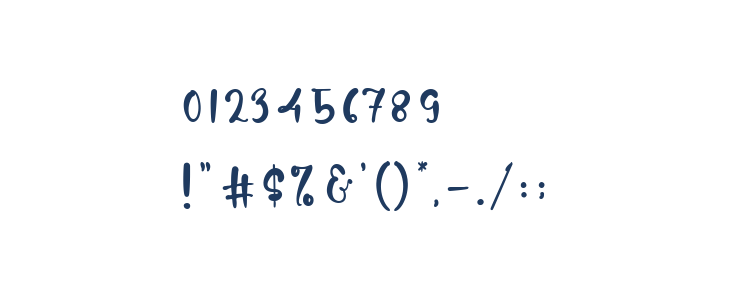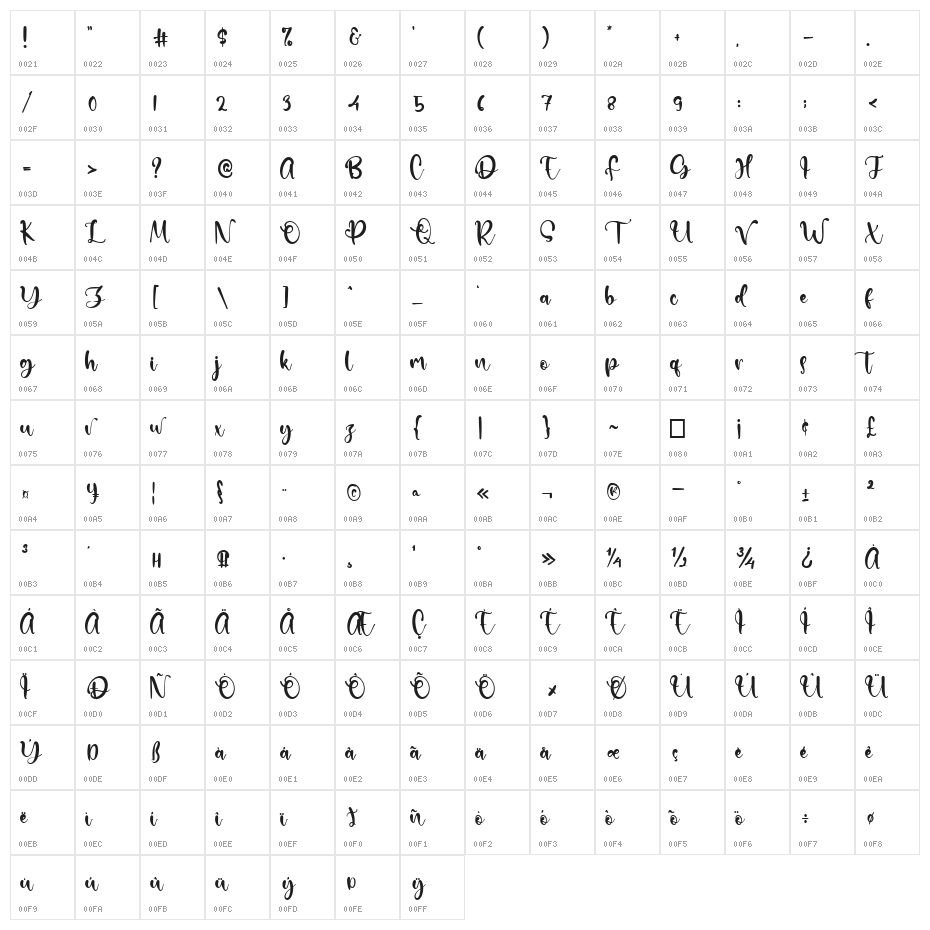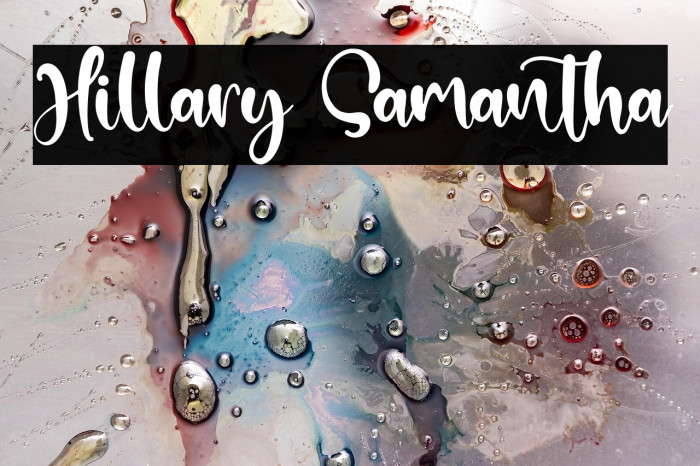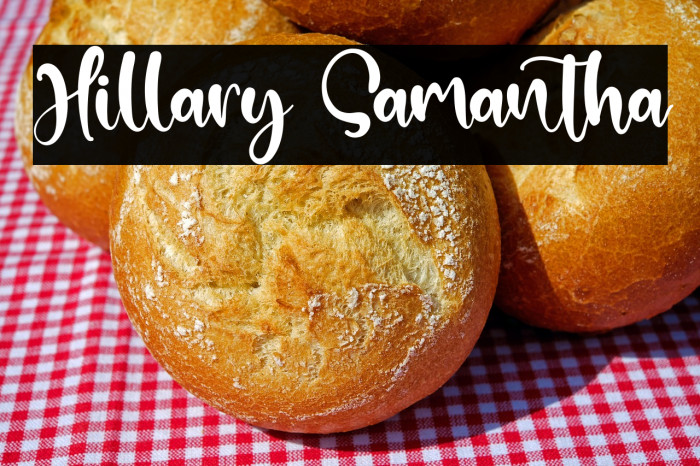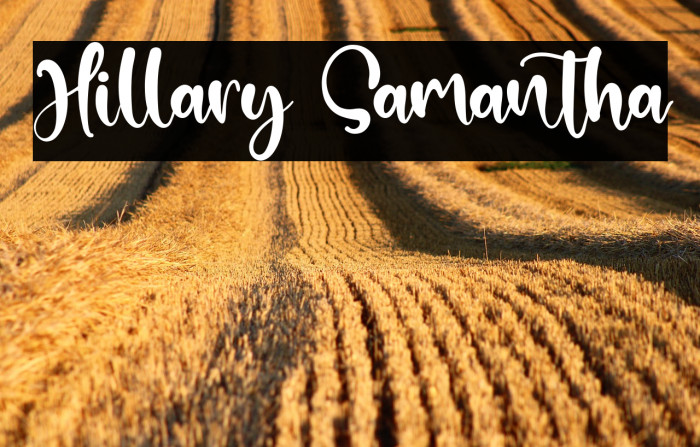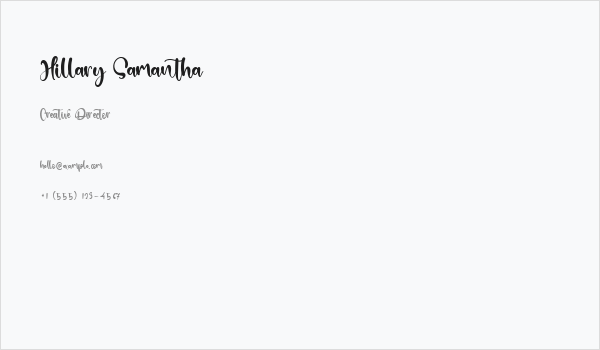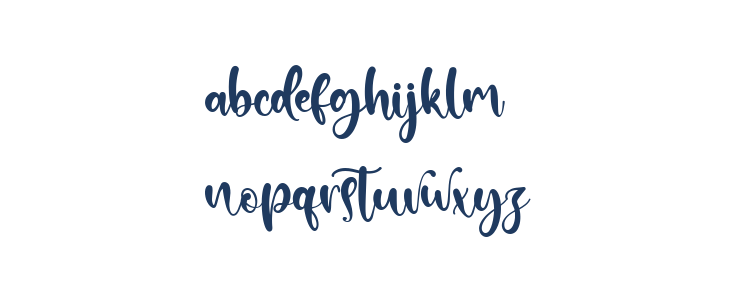
Hillary Samantha Font
Hillary Samantha Description
This font features a playful and elegant script style with a handwritten appearance. The uppercase letters are bold and flowing, with a distinct flair that adds a touch of sophistication. The lowercase letters maintain a consistent style, with smooth curves and loops that enhance readability. Numbers and special characters are designed to match the overall aesthetic, providing a cohesive look. The font's strokes are moderately thick, offering a balanced contrast that makes it suitable for various design applications.
| Proposed Projects | Ideal for wedding invitations, greeting cards, branding, and social media graphics. |